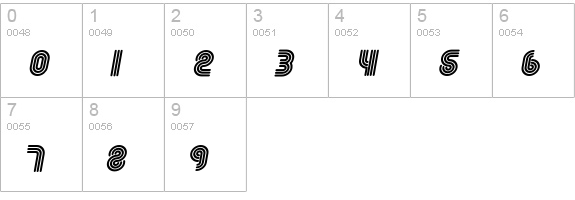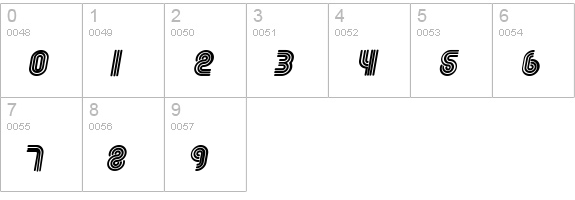
FgrooveSeventySeven font is a stylish and modern typeface that exudes a sense of energy and creativity. With its sleek lines and bold curves, this font is perfect for making a statement in any design project. Whether you're creating a logo, poster, or website, FgrooveSeventySeven will help you stand out from the crowd. The best part? FgrooveSeventySeven is completely free to download at FontsMarket.com. This means you can access this unique font without any cost, making it a valuable addition to your font collection. Don't miss out on the opportunity to enhance your designs with the dynamic and eye-catching FgrooveSeventySeven font today!